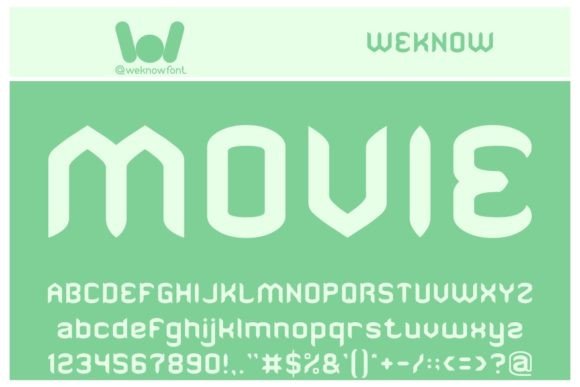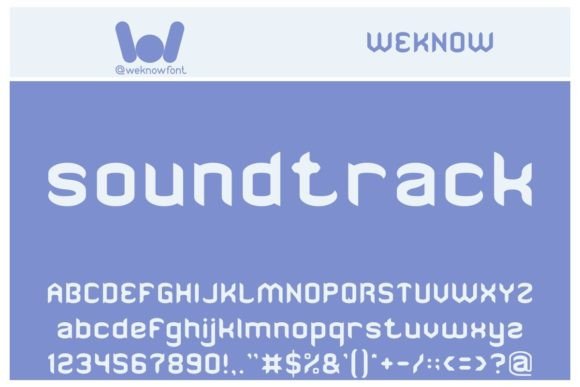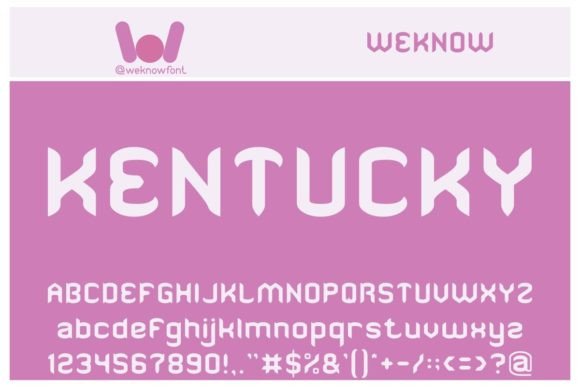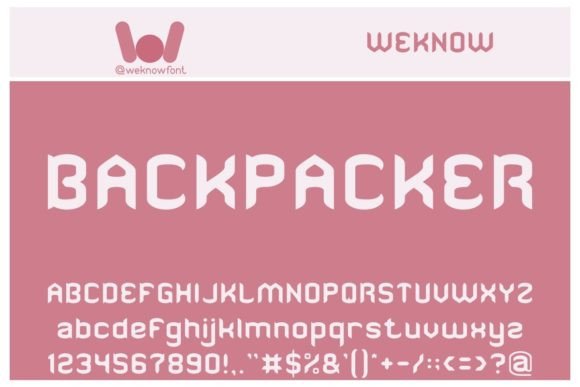
Introduction to Kediri Font
You’ve spent hours perfecting your design, and just as you’re about to hit publish, you realize it’s missing that one special something – a spark that sets it apart from the rest. For designers, finding that elusive element can be the difference between a good design and a great one. That’s where the Kediri Font comes in – a cool and stylish display font that adds an incredibly joyful touch to your creative projects.
Imagine being able to instantly elevate your designs with a high-quality font that’s as versatile as it is beautiful. The Kediri Font is a design resource that’s sure to bring a smile to your face and a touch of whimsy to your work. Whether you’re working on a free download or a paid project, this font is the perfect addition to take your designs to the next level.
Key Features of Kediri Font
- High-quality typography with a unique and elegant design, suitable for creative projects.
- Features a transparent background, allowing for seamless integration with any design resource or background image.
- Includes a range of font sizes and styles, from 12 to 72 points, to cater to different design needs and creative projects.
- Designed with a resolution of 300 DPI, ensuring crisp and clear text even at larger font sizes.
- Perfect for use in logo design, branding, and other creative projects where a high-quality font is essential.
Honest Review: Kediri Font
I recently stumbled upon the Kediri Font, and I must say it’s been a great addition to my design resource collection. This free download has some fantastic features that make it a great choice for any creative project.
- ✨ High-quality design: The Kediri Font is beautifully crafted with clean lines and a modern aesthetic. It’s perfect for any project that requires a sleek and sophisticated look.
- ✨ Transparent background: This feature allows for easy layering and manipulation, making it a versatile choice for designers.
- ✨ Versatility: The font comes in a range of weights and styles, making it suitable for a variety of creative projects.
- ⚠️ Limited language support: The Kediri Font may not support as many languages as some other fonts, which could be a drawback for designers working on international projects.
- ⚠️ Limited character set: The font may not include a comprehensive character set, which could be a limitation for designers working on projects that require a wide range of characters.
Overall, the Kediri Font is a solid addition to any design resource collection. While it may have some limitations, its high quality and versatility make it a great choice for many creative projects.
Kediri Font
Kediri Font is a high-quality, free download font that can be used in a variety of creative projects. With its transparent background, it’s perfect for use in digital designs, such as social media graphics, flyers, and posters.
Tips for Getting the Most Out of Kediri Font
To get the most out of Kediri Font, use it in combination with other design elements, such as graphics and images. Experiment with different font sizes, colors, and styles to create a unique and eye-catching design.
Kediri Font is commonly used in graphic design, digital art, and creative projects. It’s perfect for use in social media graphics, flyers, posters, and other promotional materials.